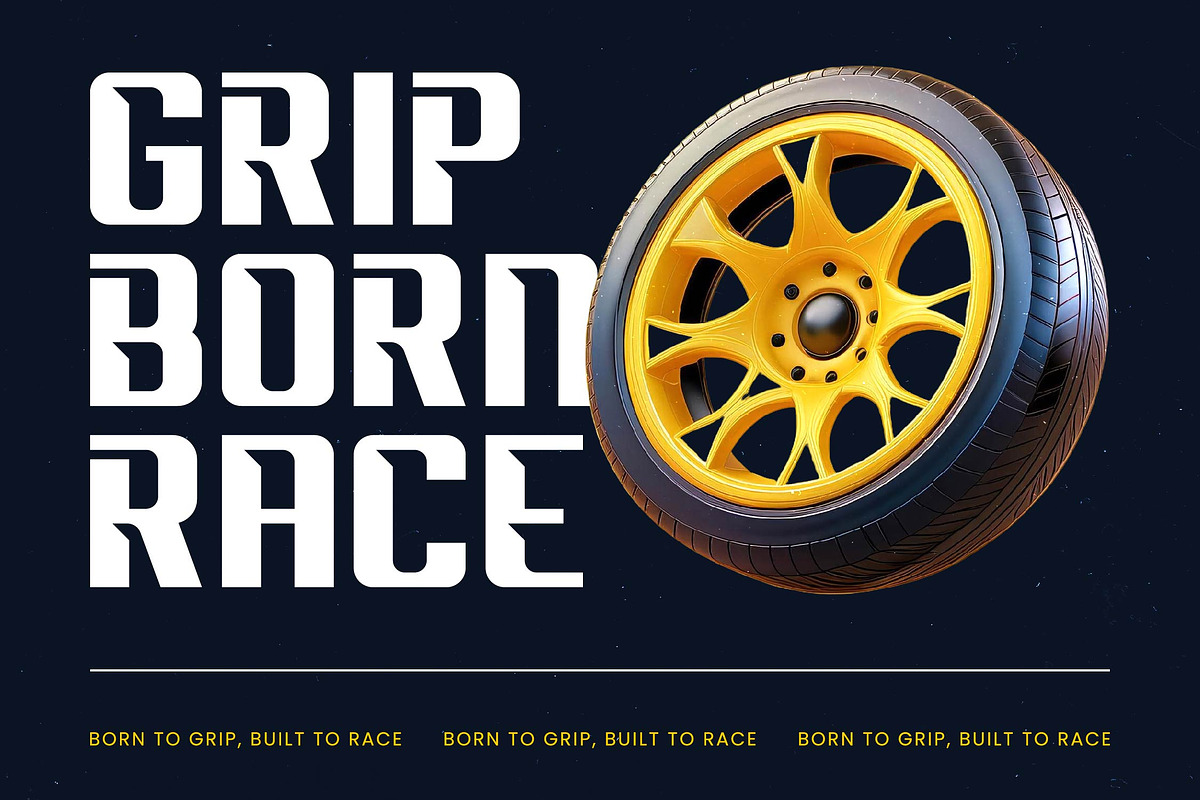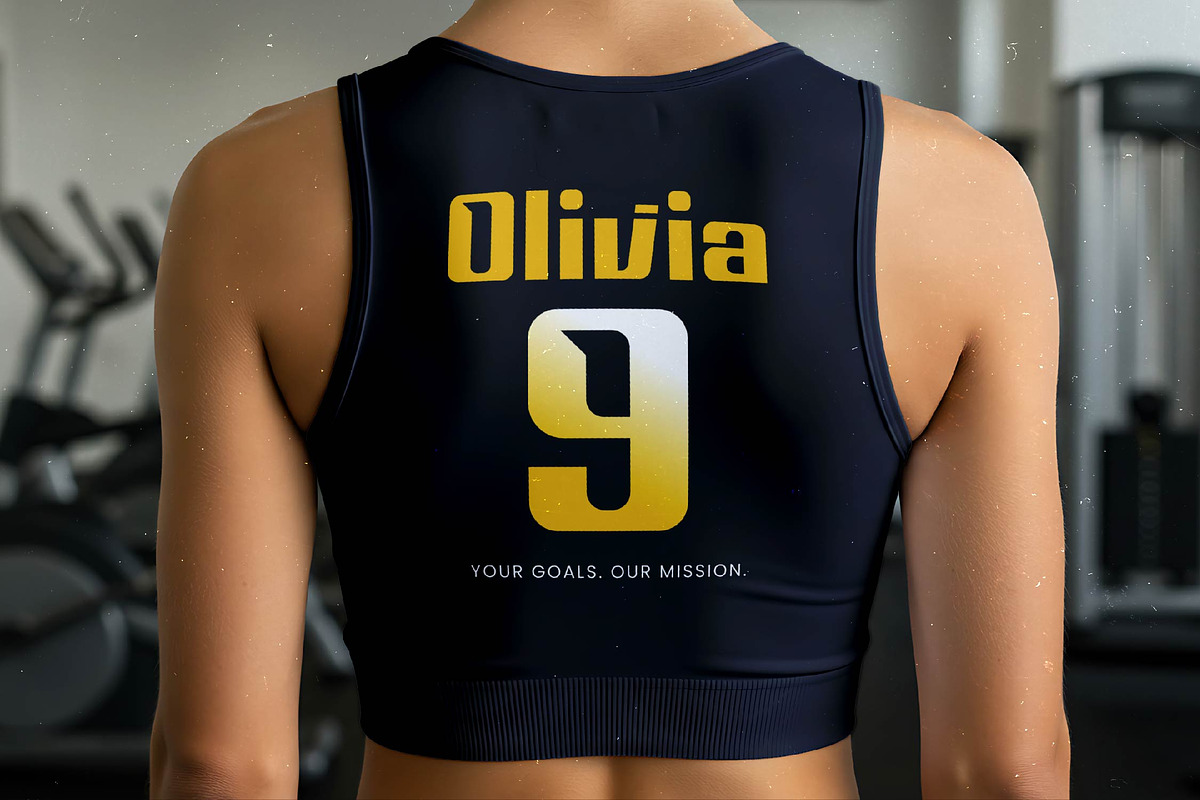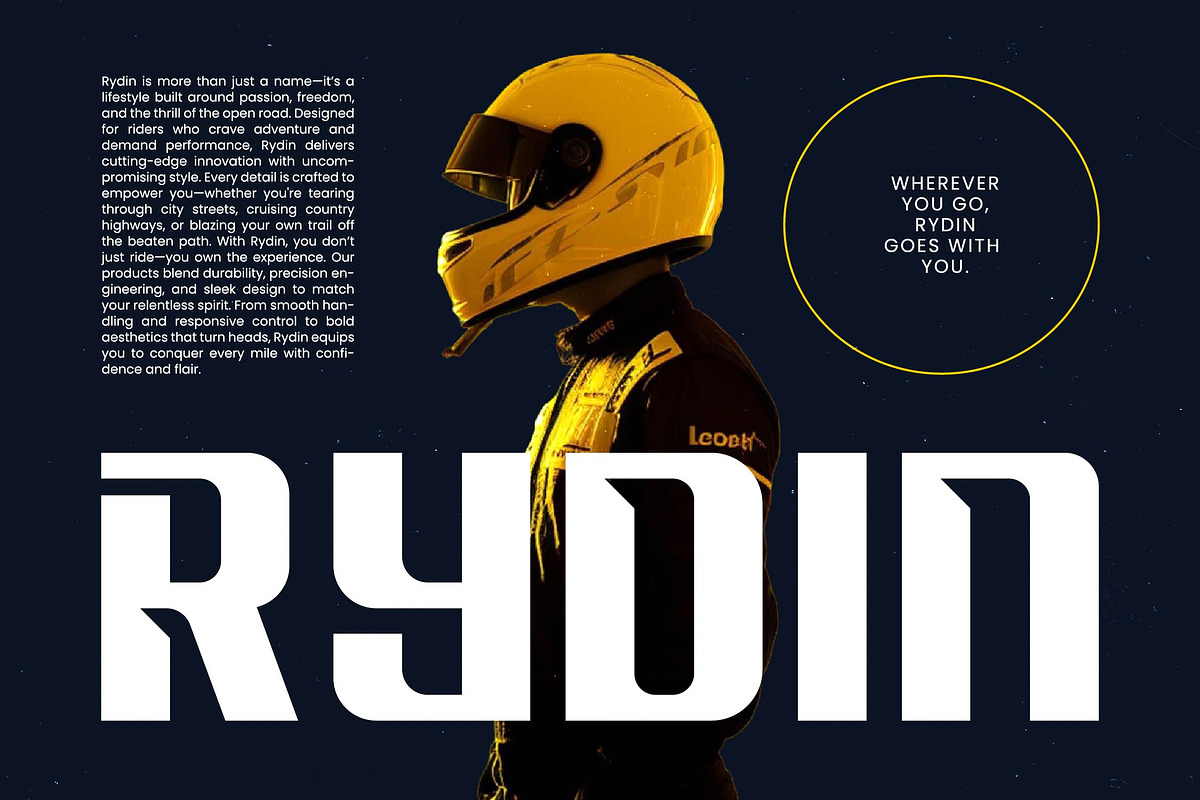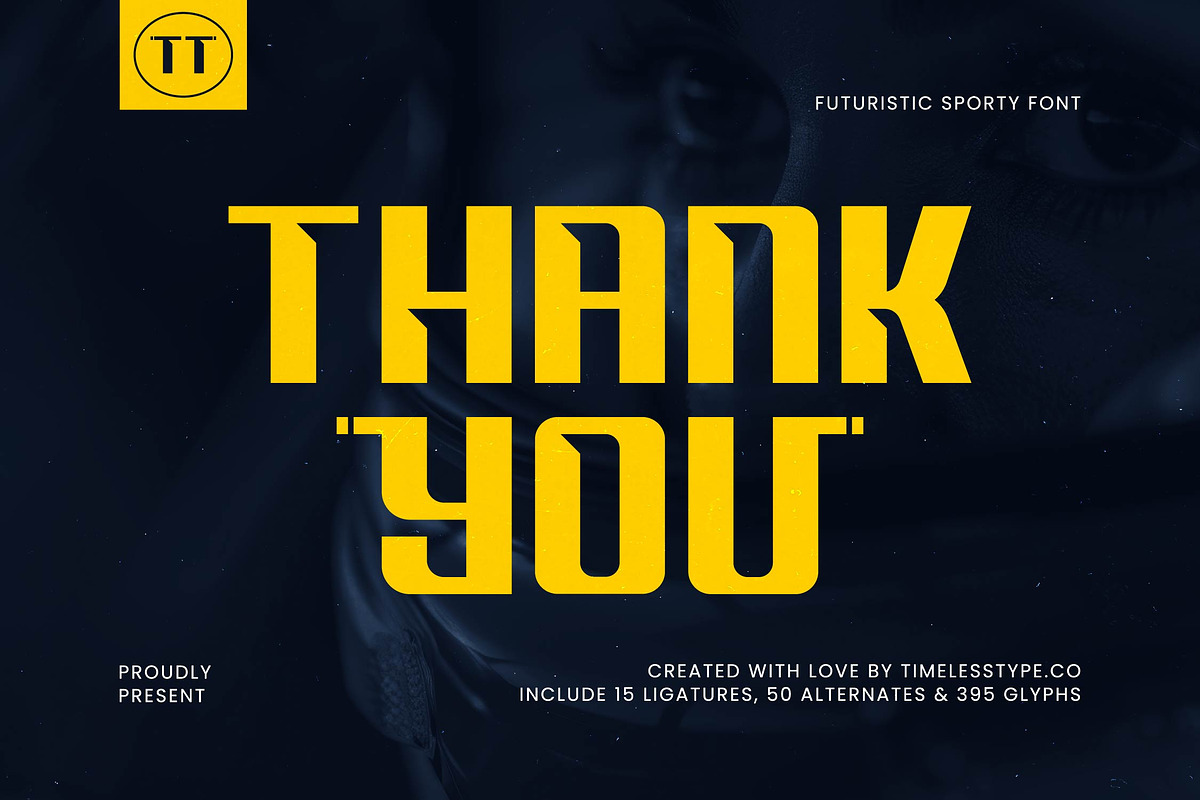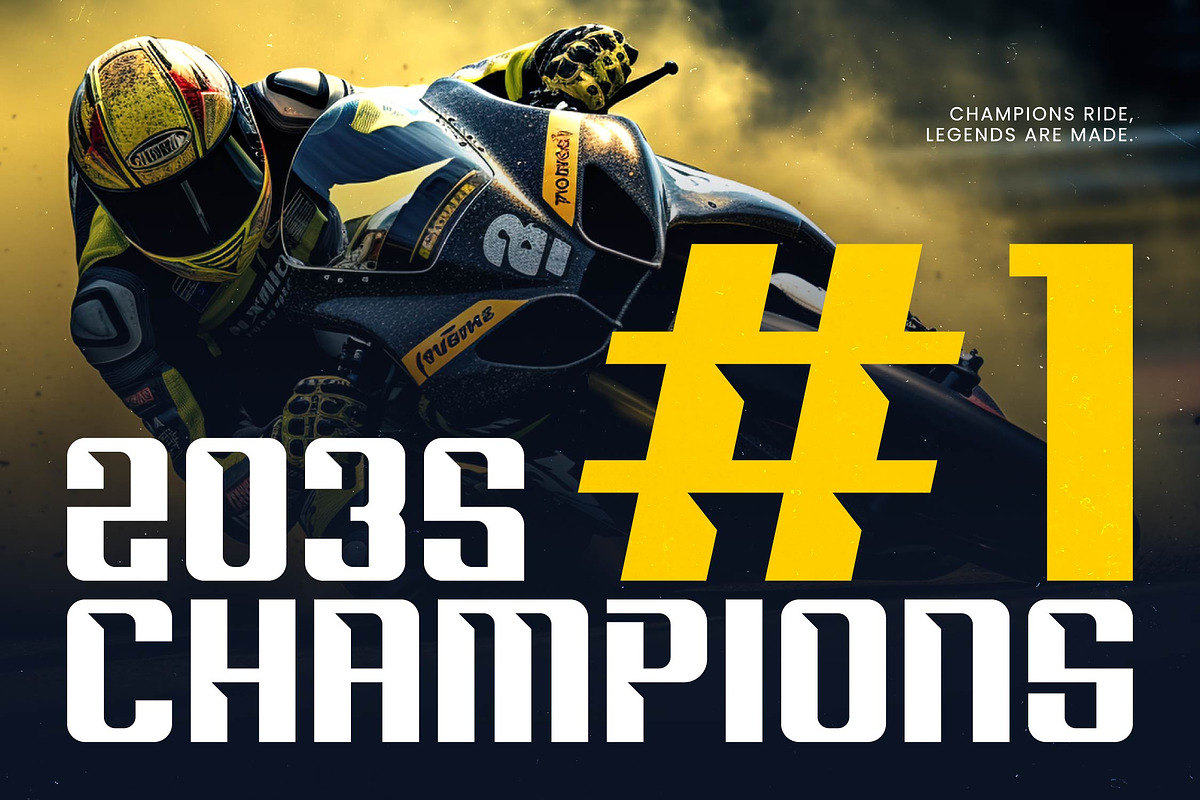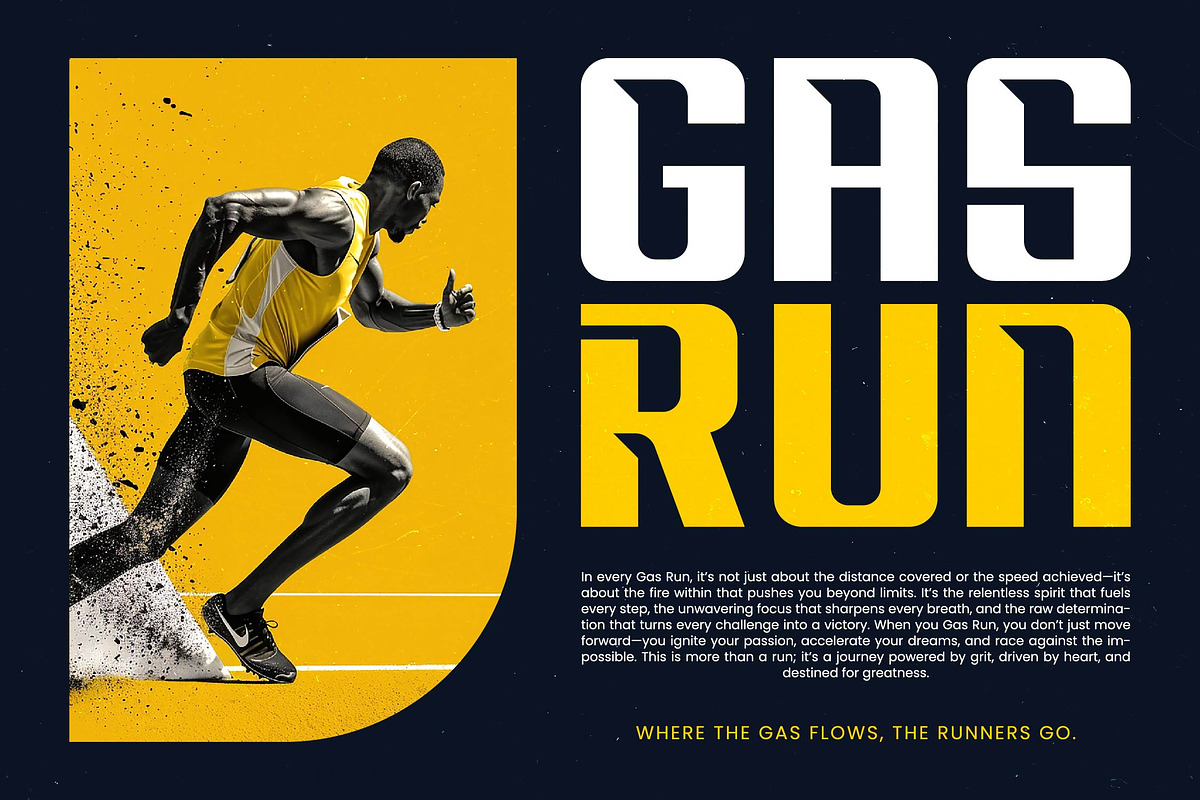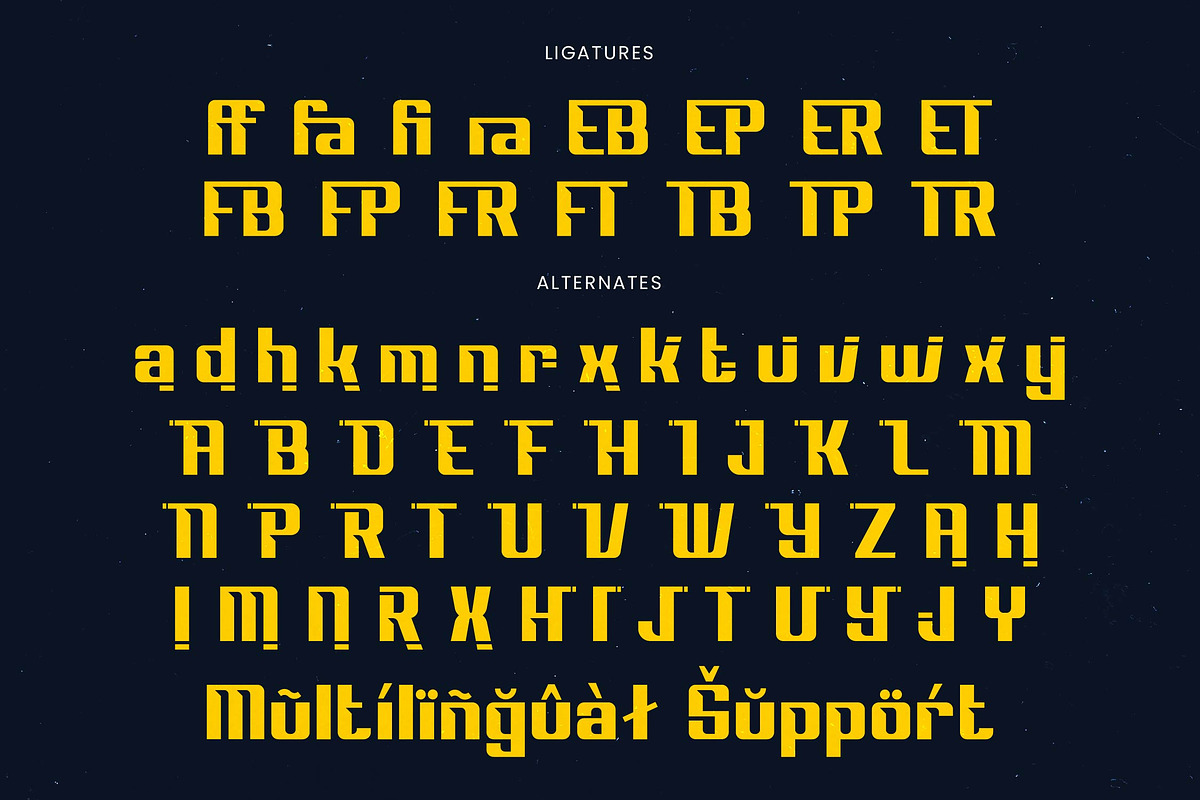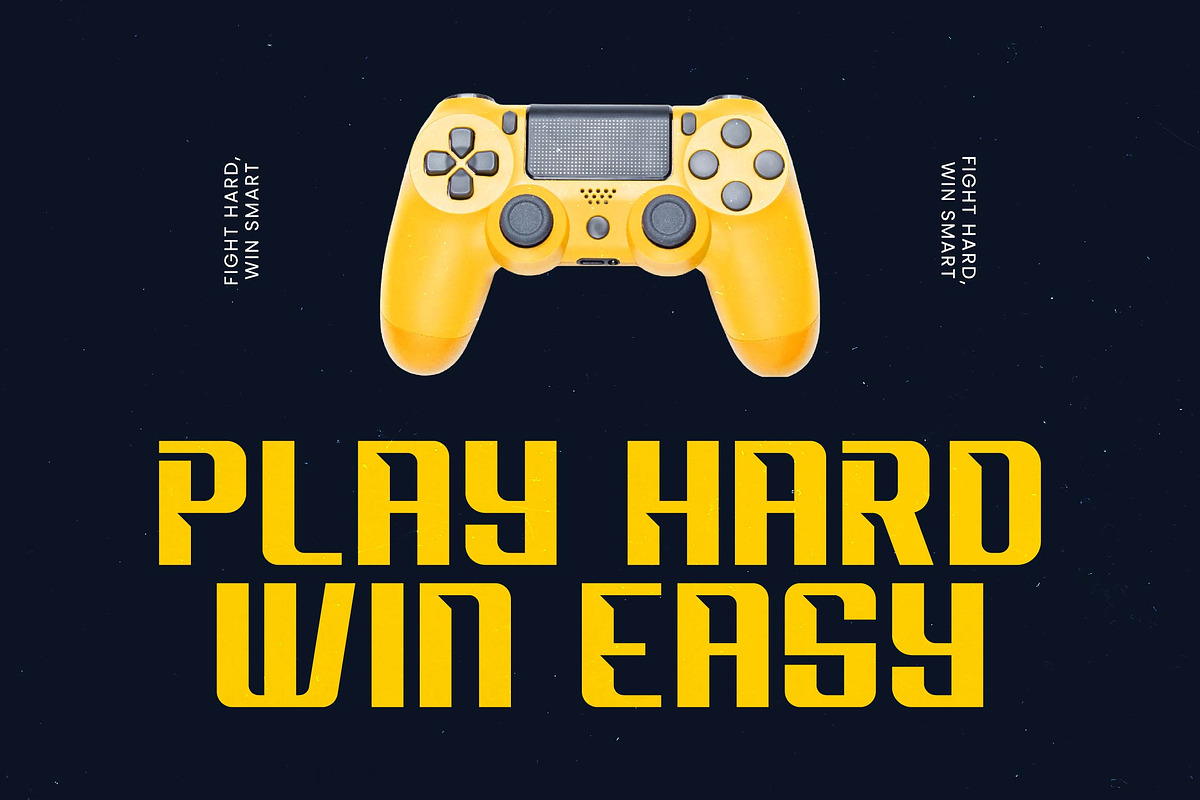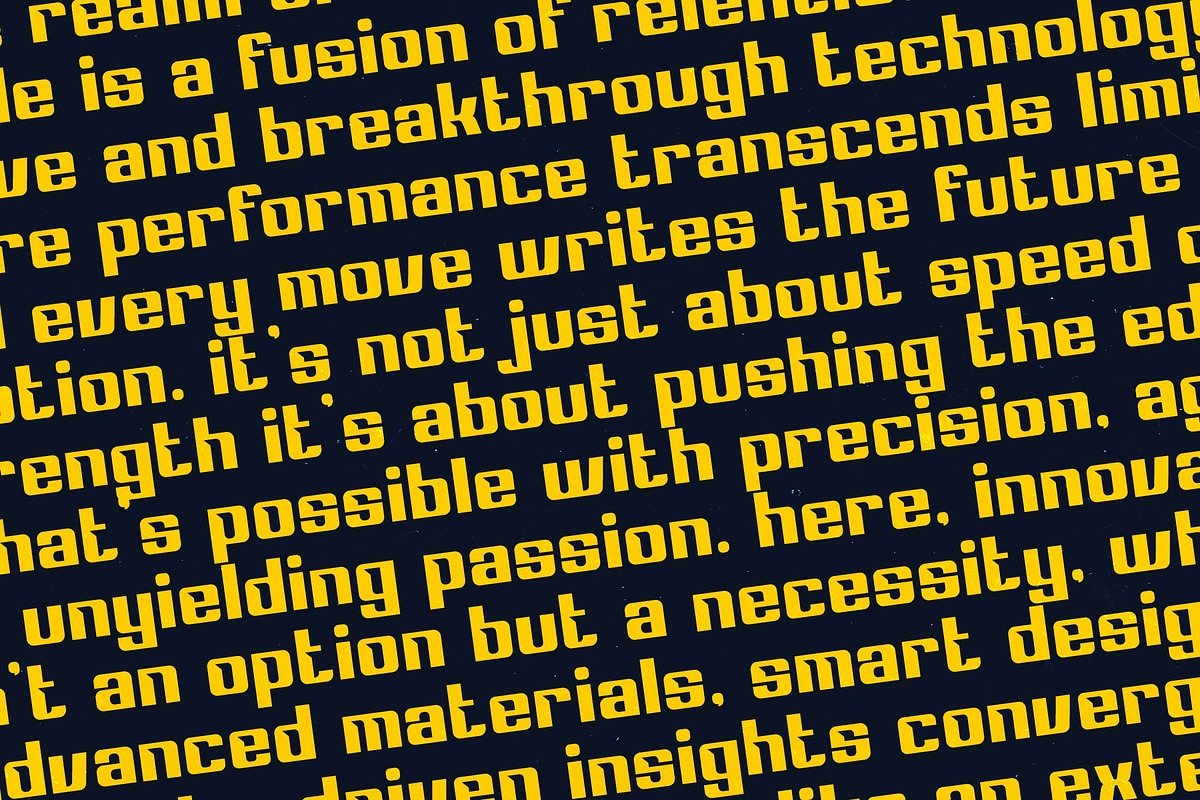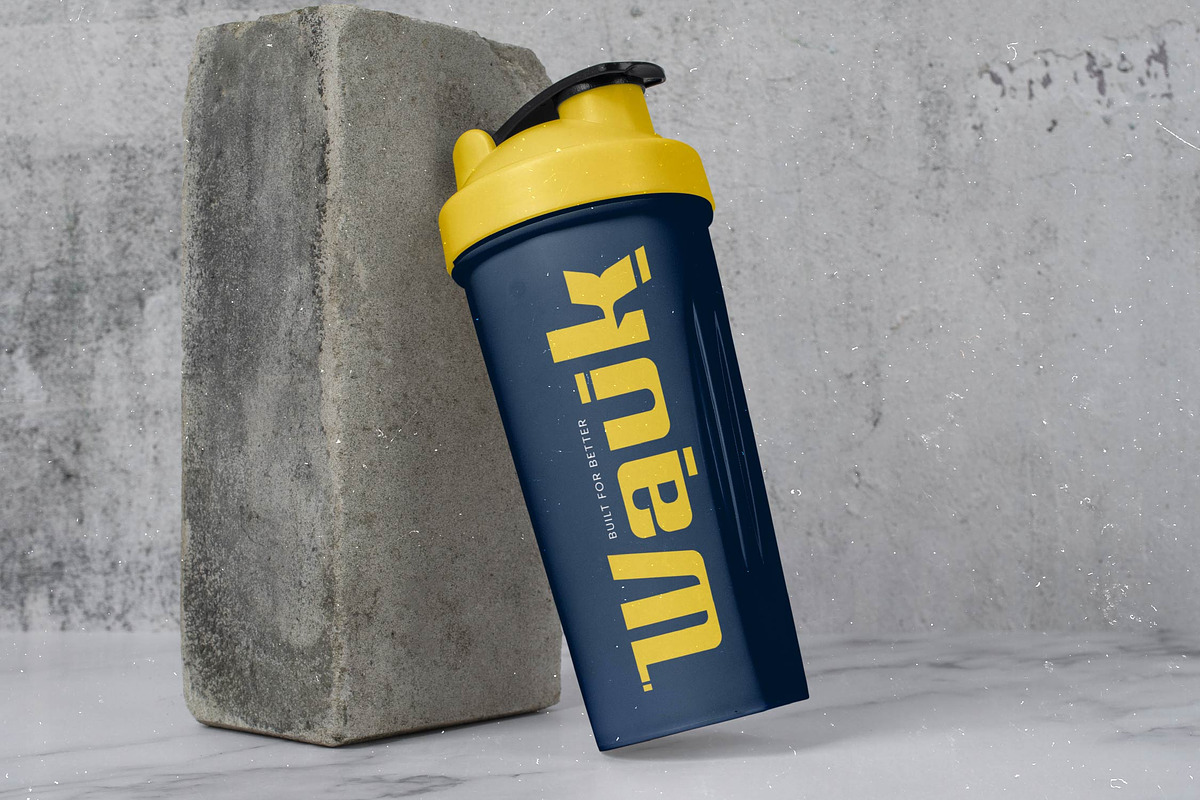
Drivery Enrich Futuristic Font
Experience the raw power of Drivery Enrich, a high-octane display font engineered for maximum visual velocity and modern impact.
Inspired by the sleek aerodynamics of supercars and the relentless energy of the racing circuit, this typeface brings a sense of high-performance engineering to the digital canvas.
This modern serif display alternative functions as a definitive luxury typography solution, utilizing its high-contrast serif elements to ensure a massive branding impact as a premium editorial font.
Setting the pace for the modern serif trend, it stands out among editorial display fonts by offering character-driven typography that feels both structured and wildly futuristic.
From sharp logo design and dynamic branding to high-stakes editorial spreads and bold packaging, it even offers a radical edge for avant-garde wedding stationery and high-end fashion lookbooks.
This professional package includes custom ligatures and unique alternates alongside decorative swashes, providing full multilingual support and a comprehensive set of international characters.